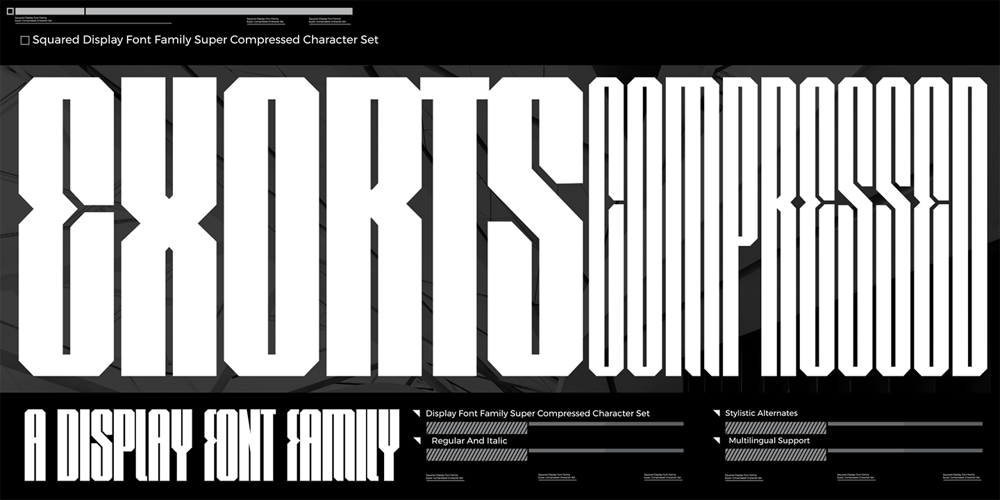
Exorts Compressed
Exorts Compressed font
Exorts Compressed Font Family was designed by Cucu Supriyadi and published by Seventh Imperium. Exorts Compressed contains 16 styles and family package options. Exorts Compressed is a display font family. This square condensed sans is designed with an increased cap character and tight kerning to give the ability create the large and bold typography. It is made specifically for editorial design, headlines, posters, magazines, clothing and other purpose printed material.The family comes in weight from extra light to extra bold and have italic version of each weight.Features include: OpenType stylistic sets, ligature, and Multiple Language Support.